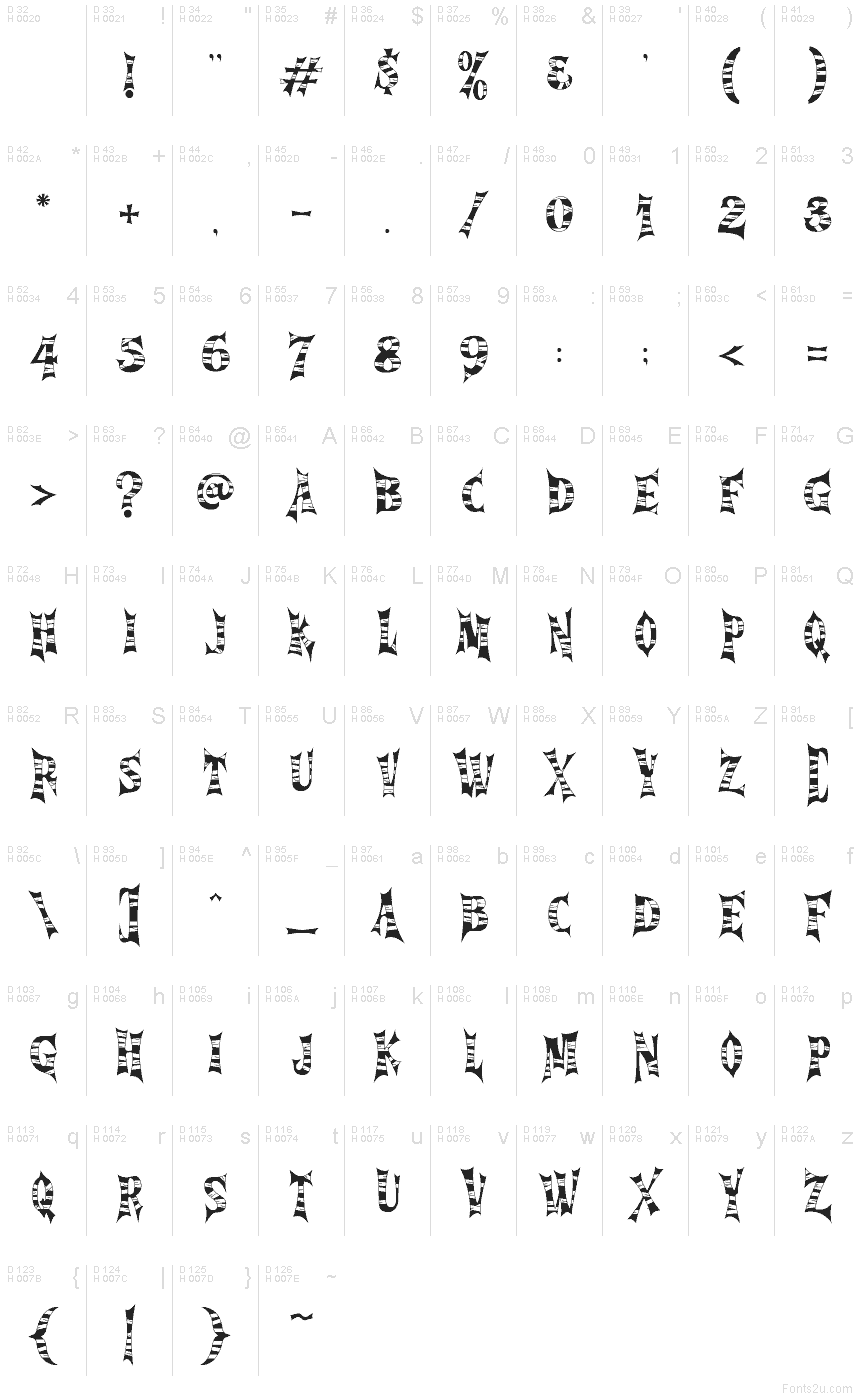
Cursed Gothic Mummy
Cursed Gothic Mummy font by PutraCetol Studio is a free Halloween display font built to drape classic blackletter shapes in frayed, bandage-like stripes. The Cursed Gothic family flavor shows through in serrated strokes, daggered serifs, and shadowy gaps that read like torn linen—high drama with readable spacing. It feels hand-wrapped and a little dusty, giving headlines a crunchy, haunted texture without losing clarity.
Using Cursed Gothic Mummy, your themes come to life on haunted house flyers, spooky party invites, trick-or-treat signage, escape-room posters, horror game thumbnails, and seasonal merch. It shines big and bold; add a touch of tracking for extra creep. Pair this free font with a clean grotesque sans for body copy to keep the scares legible.